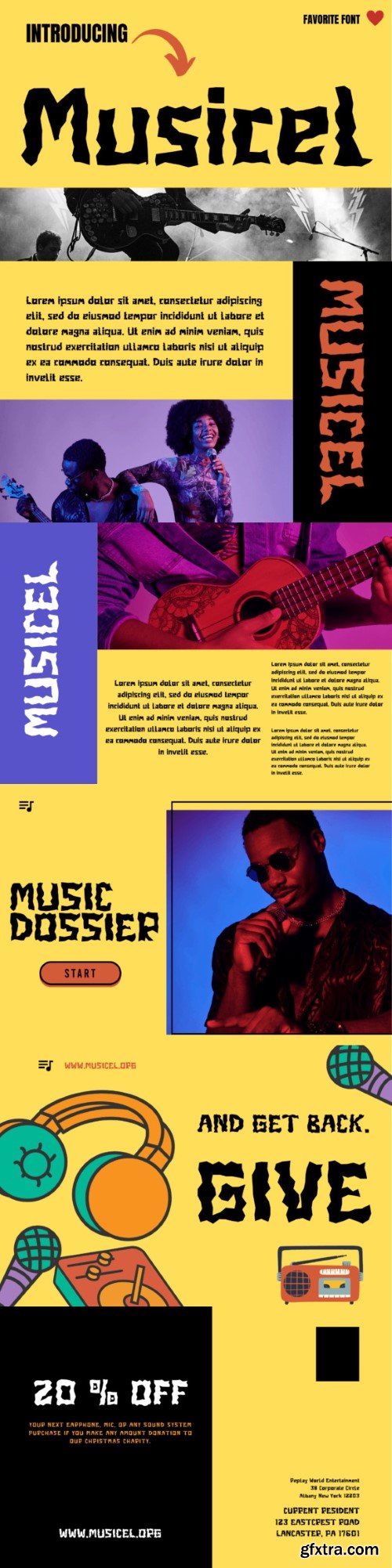
音乐字体
Experience the rhythmic harmony of Musicel – a meticulously crafted font, thoughtfully designed for music professionals and aficionados. Marrying typography with the intricate elements of musical notes, Musicel becomes a symphony for the eyes, perfect for musical compositions, sheet manuscripts, and concert paraphernalia. The masterfully sculpted curves and glyphs inspired by rhythm give Musicel a distinctive edge, enhancing your musical notation and letting the melodies dance and flourish on paper. Whether you’re orchestrating a symphony, setting a score, or conceiving concert flyers, Musicel will be your inspirational companion, infusing a harmonious edge to all your musical creations.